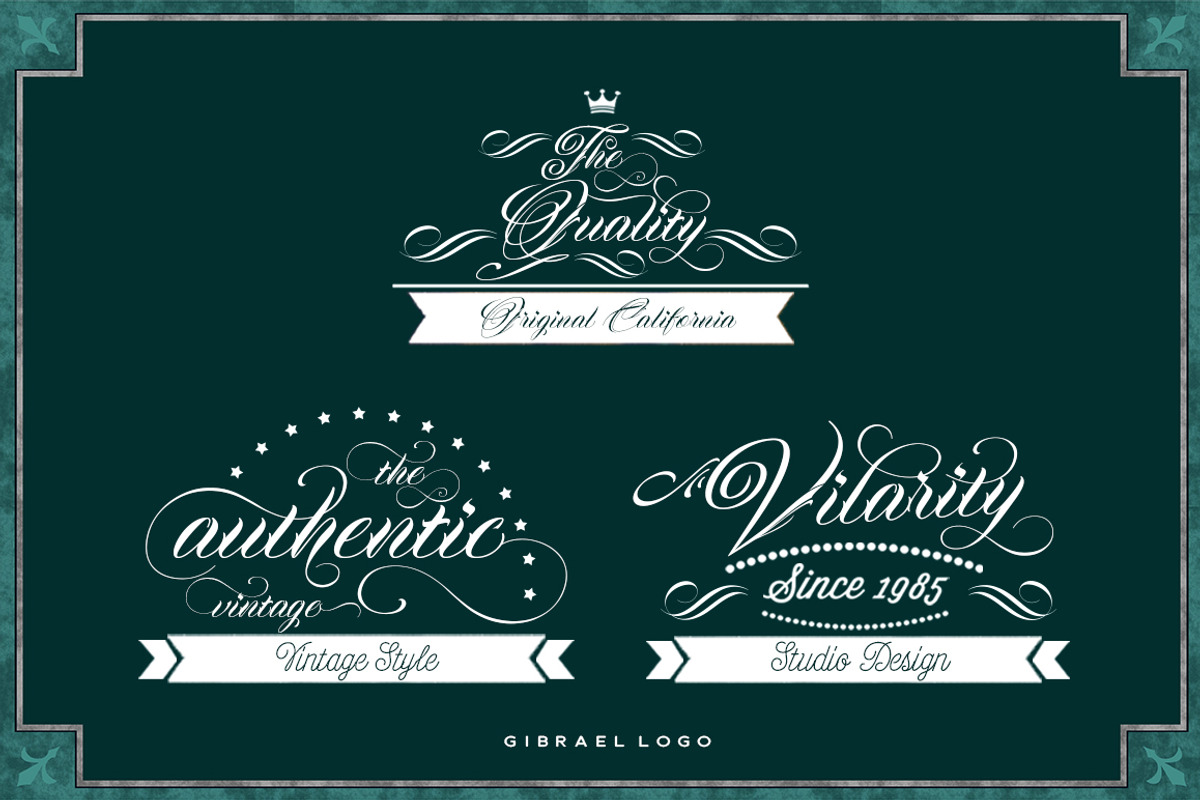
Gibrael
GIBRAEL
Gibrael is truly a perfect script for any project that's need delicate typeface such as custom name, greeting card, create logos, etc. A handy font for tattoo designer and artsy creative people! It's a beautiful, elegant, clean and unique typeface you need to have! Contains over 600 glyphs, it has many alternate characters so you can make a beautiful decorative type easily.